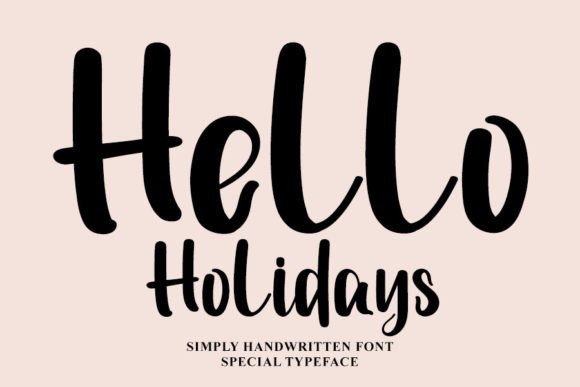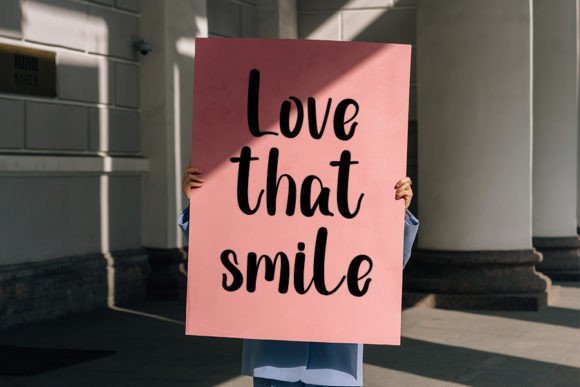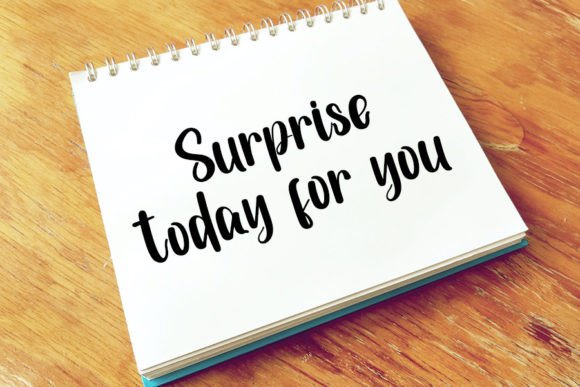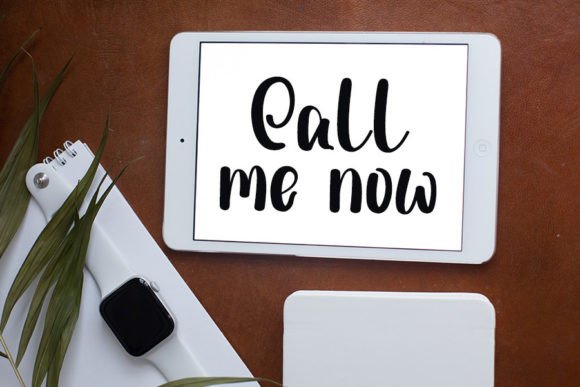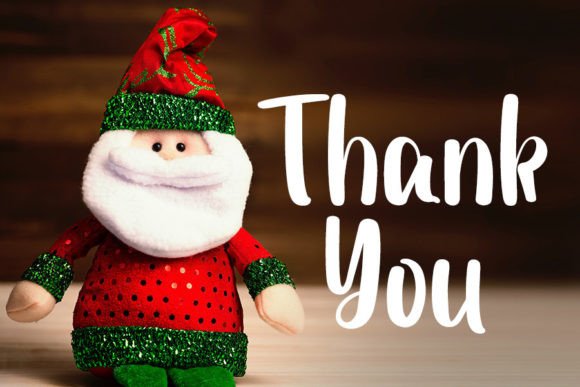
Hello Holidays Font
Celebrate the season with the Hello Holidays font, a stylish handwritten script that blends contemporary style with timeless classic calligraphy inspiration. This font is both balanced and varied, designed to add an elegant and festive touch to your creative projects.
The Hello Holidays font is perfect for holiday cards, invitations, branding, social media graphics, posters, and packaging. Its flowing and graceful letters create a warm and inviting atmosphere that enhances any seasonal design.
Inspired by classic calligraphy, the Hello Holidays font offers a perfect combination of traditional handwriting elements and modern aesthetics. This unique blend allows your projects to stand out with sophistication and charm.
Despite its stylish appearance, the Hello Holidaysfont maintains excellent readability at different sizes. This versatility makes it ideal for use in headlines, body text, and various other design elements.
Using the Hello Holidaysfont will help you create beautiful and memorable holiday-themed designs. If you’re looking for a handwritten font that captures both elegance and seasonal joy, this font is an excellent choice.
In summary, the Hello Holidaysfont is a stylish, balanced, and classic-inspired handwritten script. Perfect for holiday cards, branding, invitations, and more. Download it today and add festive beauty to your creative projects with Hello Holidays.